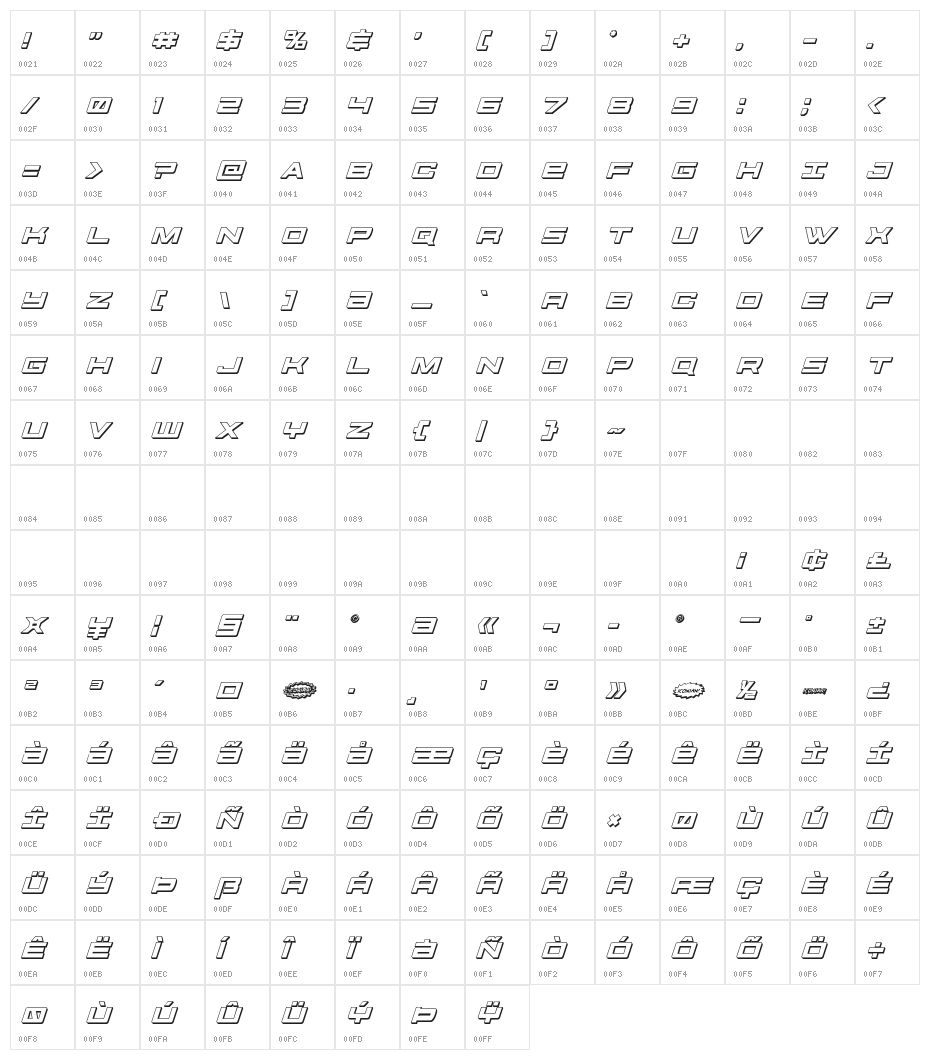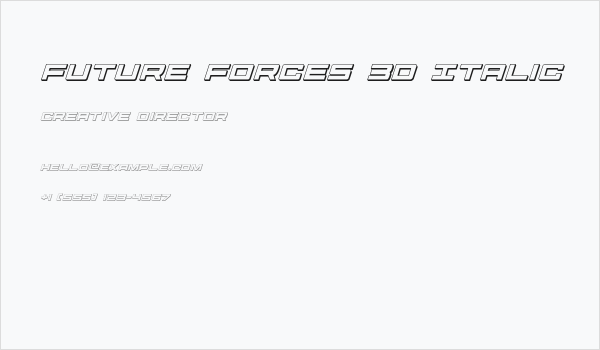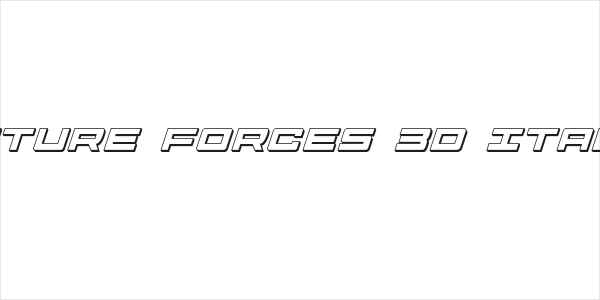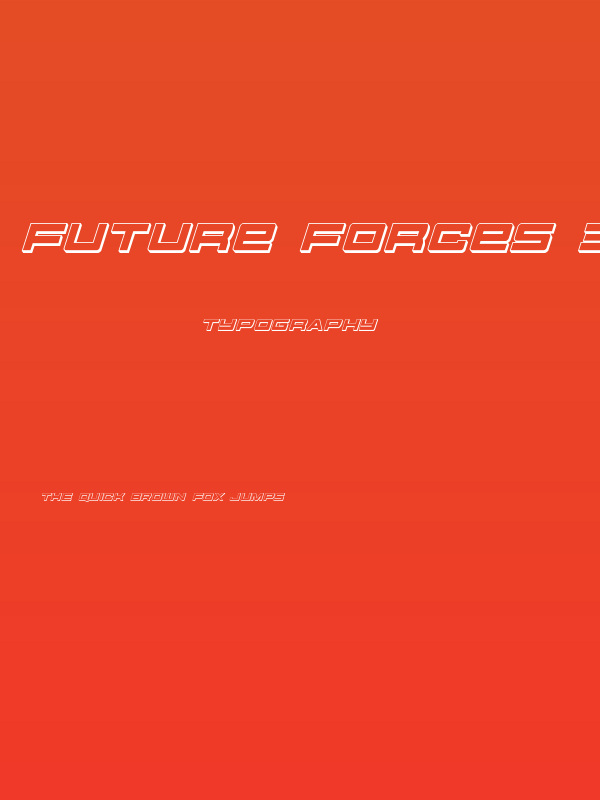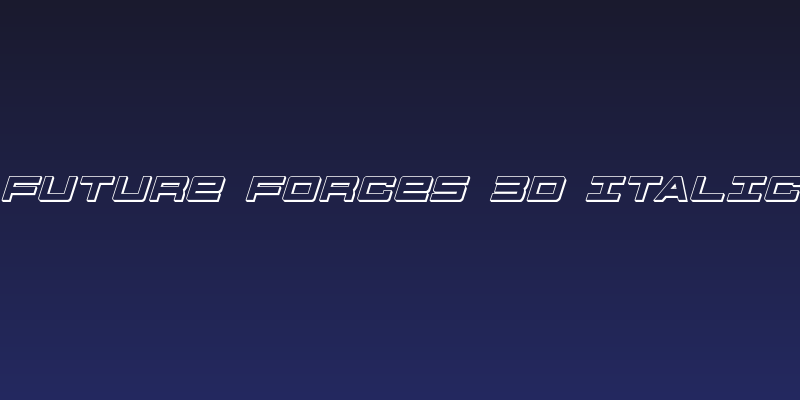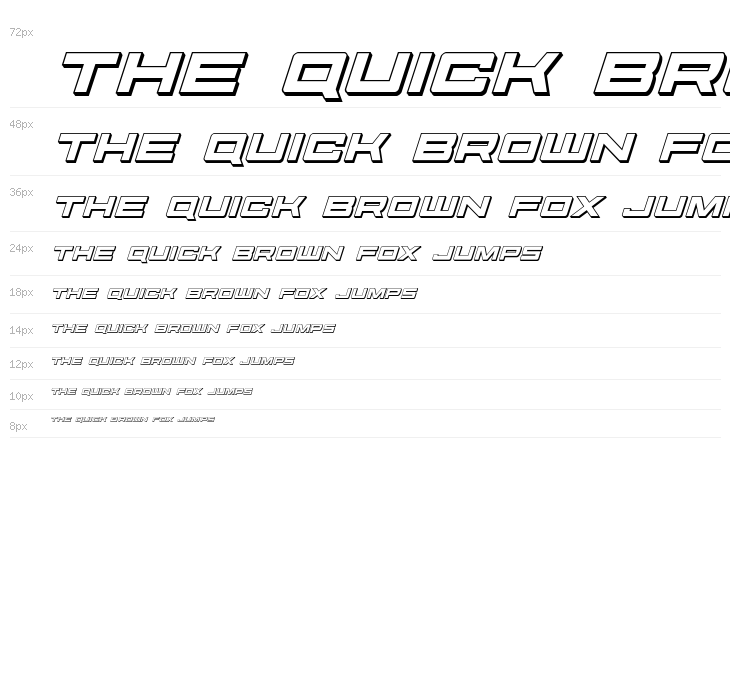
Future Forces 3D Italic Font
Future Forces 3D Italic Description
This font features a futuristic and dynamic design with a 3D effect that gives it a bold and striking appearance. The characters are italicized, adding a sense of motion and speed. The outlines are thick and consistent, creating a strong visual impact. Each letter is crafted with precision, maintaining a uniform style that is both modern and edgy. The numbers and special characters follow the same design principles, ensuring a cohesive look across all elements. This font is ideal for projects that require a contemporary and energetic feel.
| Proposed Projects | Ideal for sci-fi themed designs, tech branding, video game titles, and futuristic posters. |